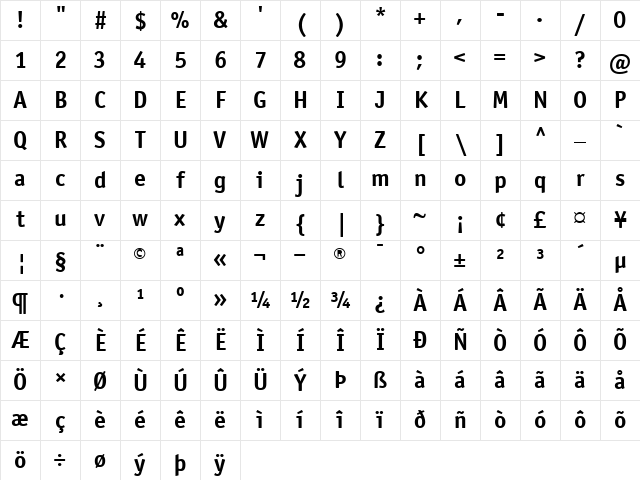
OfficinaSansBold Normal
OfficinaSansBold Family
Complete OfficinaSansBold Normal glyph index. Displaying only characters natively supported by OfficinaSansBold Normal font.
Design Context for OfficinaSansBold
OfficinaSansBold is a composed and adaptable typeface that performs quietly and consistently across a wide range of design contexts. Its bold stroke weight gives it real presence on the page.